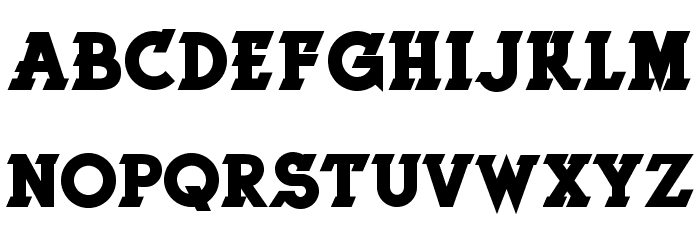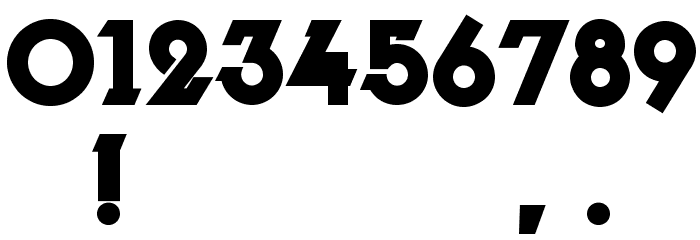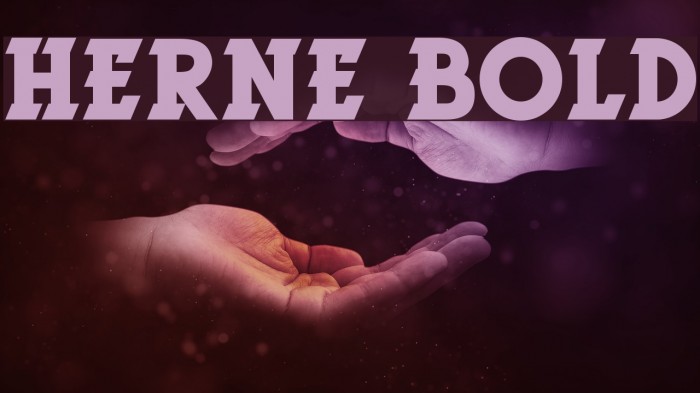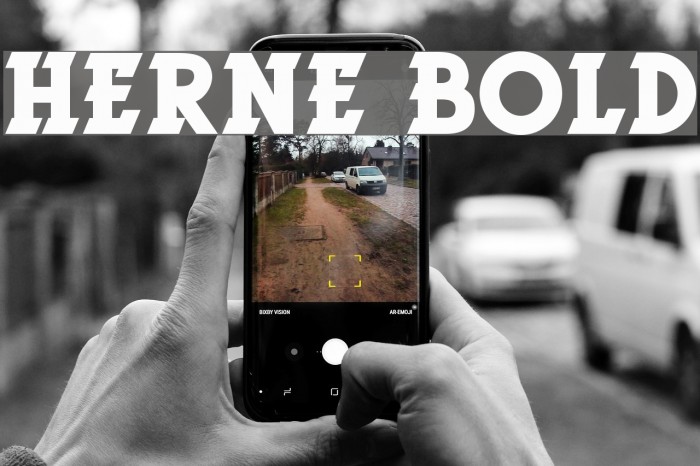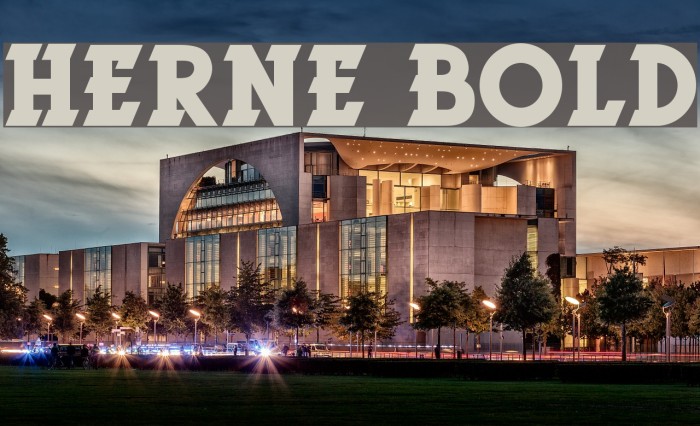
Herne Bold Font
This font exhibits a bold and striking presence with its thick, angular strokes and sharp edges. The characters are designed with a strong geometric influence, giving them a modern and assertive appearance. The uppercase letters are particularly impactful, featuring a consistent weight that enhances readability and visual impact. The numerals and special characters maintain the same boldness, ensuring uniformity across all glyphs. This font's style is ideal for making a statement, with its high contrast and distinctive design elements.
A bold, geometric font with strong, angular strokes and high contrast.
- Proposed Projects: Ideal for branding, headlines, posters, and any project requiring a strong visual impact.